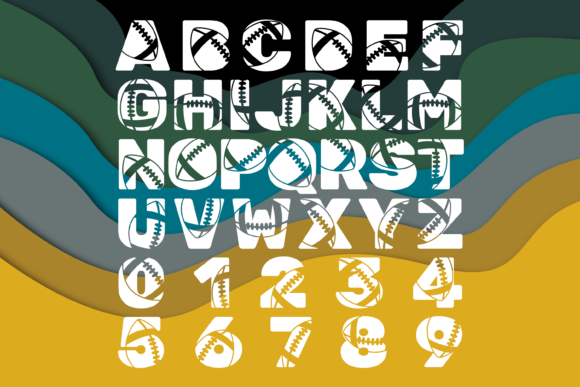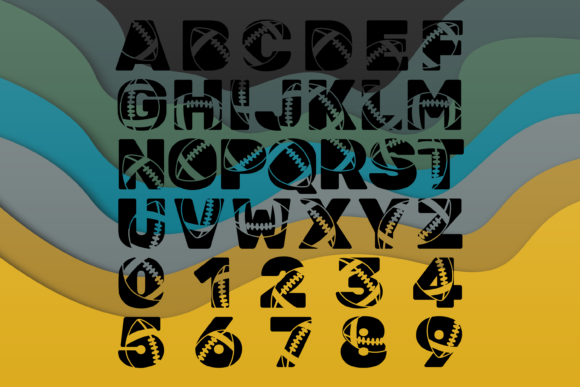
Introduction to Quarterback Font
Quarterback is an incredibly cool font.
Simple but with a strong visual effect, this font will instantly make your creation more appealing than any others .
Key Features of Quarterback Font
Why Choose Quarterback Font?
Quarterback Font offers exceptional quality and versatility, making it a valuable addition to your design toolkit. Whether you’re creating for personal projects or commercial use, Quarterback Font delivers professional results.